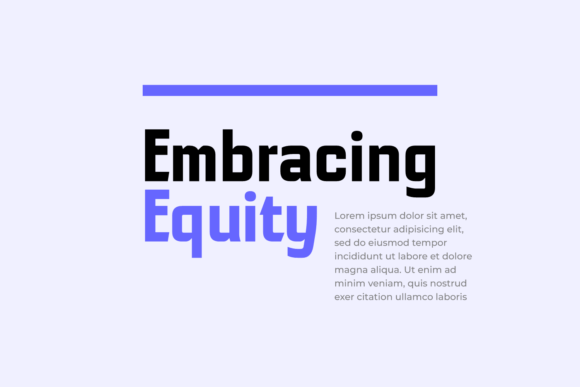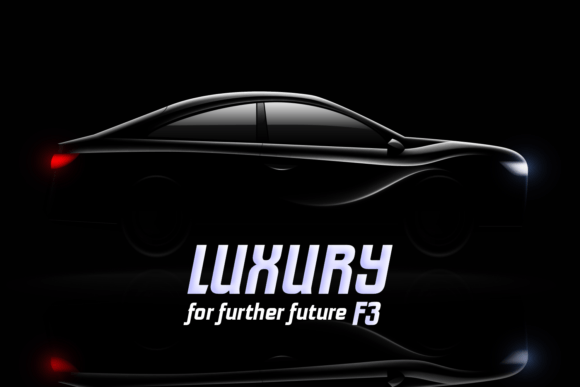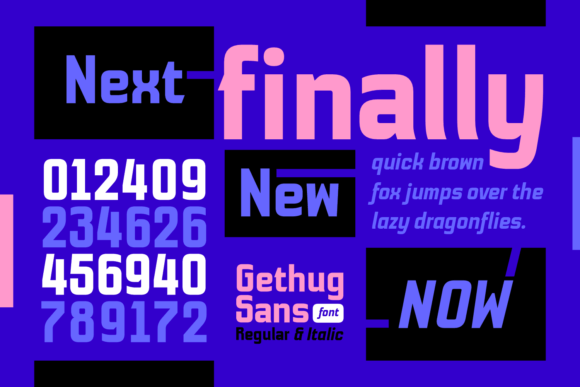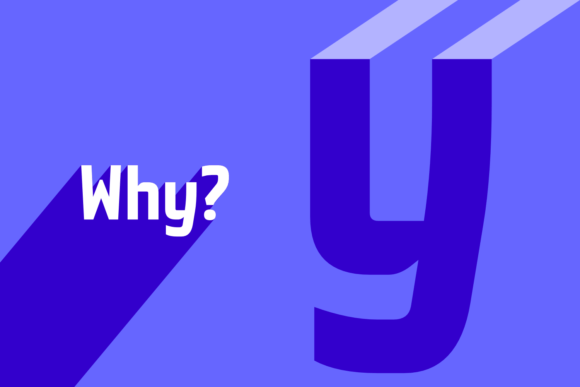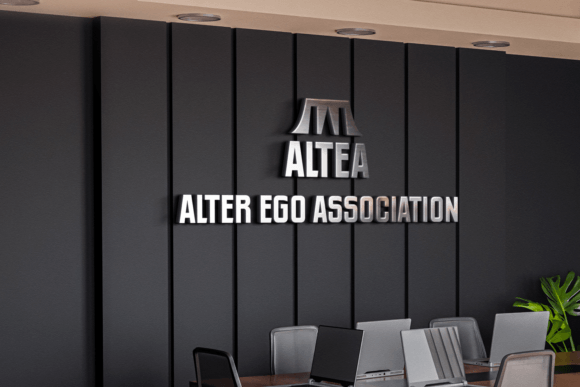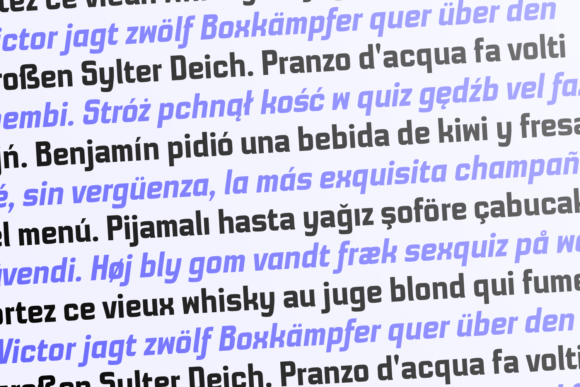
Gethug Font: Elevate Your Designs with Elegance and Modernity
In the world of typography, fonts play a crucial role in conveying the tone and aesthetic of a design. For designers and crafters seeking a modern and elegant sans serif font, Gethug is an excellent choice. This versatile font boasts a minimalist and clean vibe, making it perfect for a wide range of applications, from book covers and magazines to social media posts and invitations.
The Characteristics of Gethug Font
Gethug is a sans serif font, characterized by its sleek and streamlined appearance. The font’s clean lines and minimalist design make it an ideal choice for designers who want to create a sophisticated and modern look. The elegant curves and precise letterforms of Gethug ensure that your text is not only easy to read but also visually appealing.
Versatility of Gethug Font
One of the standout features of Gethug is its versatility. This font can be used in a variety of design projects, including:
- Book Covers: Gethug’s modern and elegant design makes it perfect for book covers, adding a touch of sophistication to your literary masterpiece.
- Magazines: The font’s clean and minimalist vibe is well-suited for magazine designs, making it easy to read and visually appealing.
- Social Media Posts: Gethug’s elegant design ensures that your social media posts stand out from the crowd, making it perfect for businesses, influencers, and individuals looking to elevate their online presence.
- Invitations: Whether it’s a wedding invitation, birthday party, or corporate event, Gethug’s modern and elegant design makes it an excellent choice for creating stunning invitations.
Benefits of Using Gethug Font
So, why choose Gethug font for your design projects? Here are just a few benefits:
- Elegance: Gethug’s modern and elegant design adds a touch of sophistication to your designs.
- Readability: The font’s clean lines and precise letterforms ensure that your text is easy to read.
- Versatility: Gethug can be used in a wide range of design projects, from book covers to social media posts.
- Modernity: The font’s sleek and streamlined appearance makes it perfect for designers looking to create a modern look.
Tips for Using Gethug Font
To get the most out of Gethug font, here are a few tips:
- Pair with Other Fonts: Experiment with pairing Gethug with other fonts to create a unique and visually appealing design.
- Use in Headings and Body Text: Gethug is suitable for both headings and body text, making it a versatile choice for designers.
- Adjust Font Size and Color: Don’t be afraid to experiment with different font sizes and colors to create a design that stands out.
In conclusion, Gethug font is an excellent choice for designers and crafters seeking a modern and elegant sans serif font. Its versatility, readability, and elegance make it perfect for a wide range of design projects. Whether you’re creating book covers, magazines, social media posts, or invitations, Gethug is sure to elevate your designs and add a touch of sophistication.
So, why not give Gethug font a try? With its clean and minimalist vibe, it’s sure to become a staple in your design toolkit.